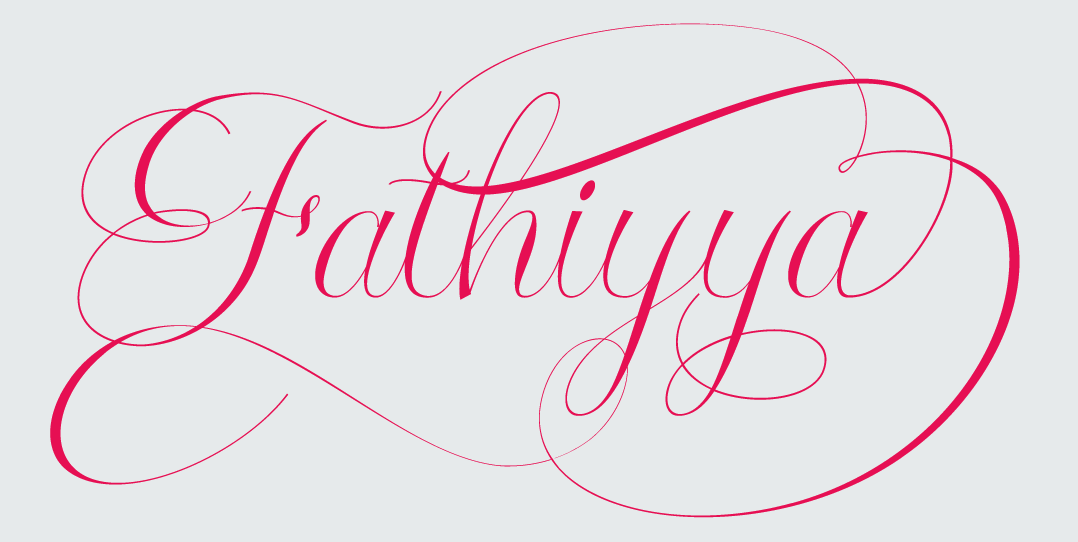
Black Lotus [Riska Kurniawan]
Aceh, Indonesia-based designer of these sometimes eerie display typefaces in 2019: Neo Thomasy, Queen of Sahara, The Jungle, The Viper Stone (a vampire script with a monogram style), Droidlady, Soulring, Braxica Lily, Arch Diary, Avenomous, Oscar, Neptunes (octagonal, sci-fi, stencil).
In 2020, he designed Berliana Elemixia (a scriptish display typeface) and the rustic spurred Victorian typeface Asteric Vintage.
Typefaces from 2021: Sweet Honey (a scrapbook script), Fathiyya Script (calligraphic), Atjeh Night (a lava lamp typeface), Holy Mordigan (cursive; with calligraphic undertones), The Stacy (an upright retro signage script), Arcandias Downtown (a decorative serif), The Florest (floriated caps).